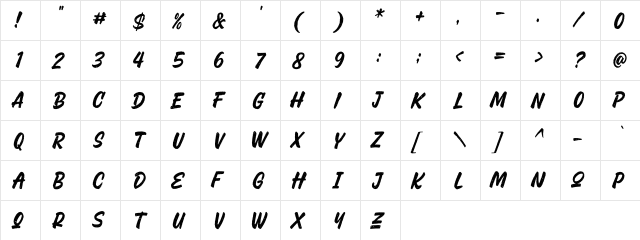
Retro Brush wears its vintage influences proudly, with letterforms that recall mid-century signage, classic packaging, and nostalgia-driven design.
Font Pairing: Combine Retro Brush with a simple slab or neutral sans - period-accurate companions reinforce the vintage feel without competing for attention.
Pro Tip: Lean into Retro Brush's period character by pairing it with aged paper textures, muted colour palettes, and vintage illustration styles.